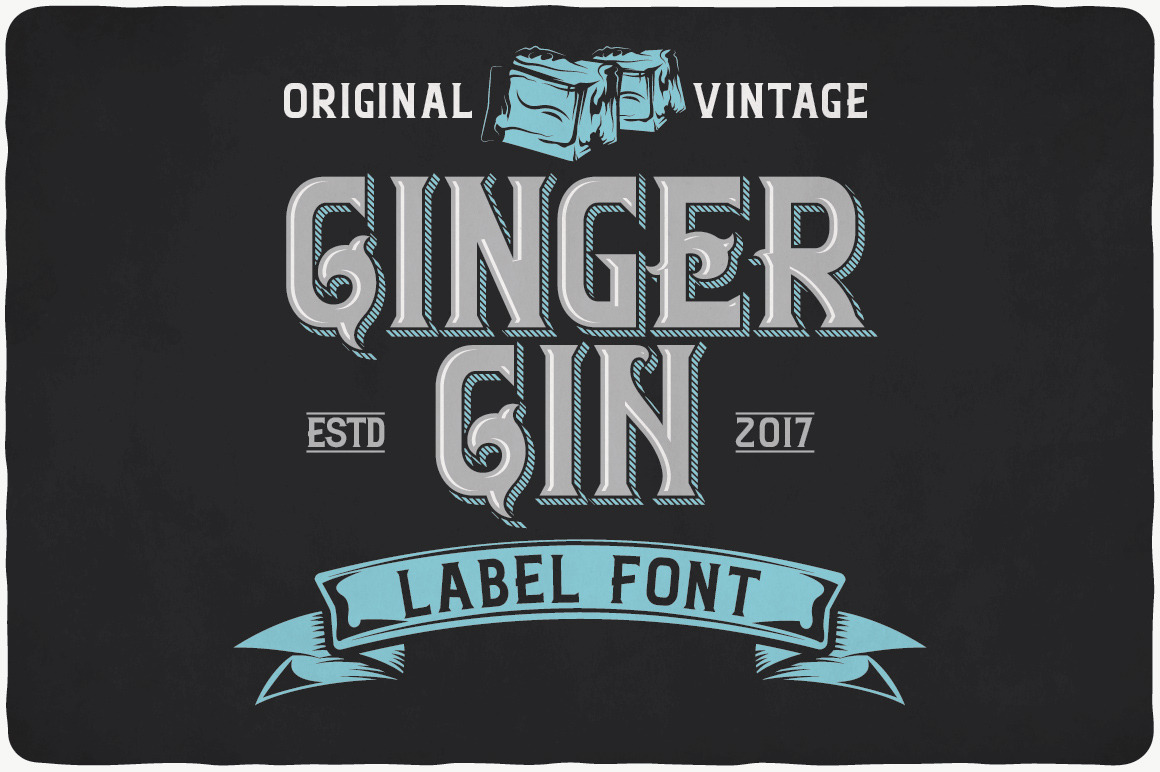
Ginger Gin typeface
Introducing a vintage look label typeface named "Ginger Gin". This typeface includes four styles, for sample look at 4th preview. Typeface is good viewed on any yours design.